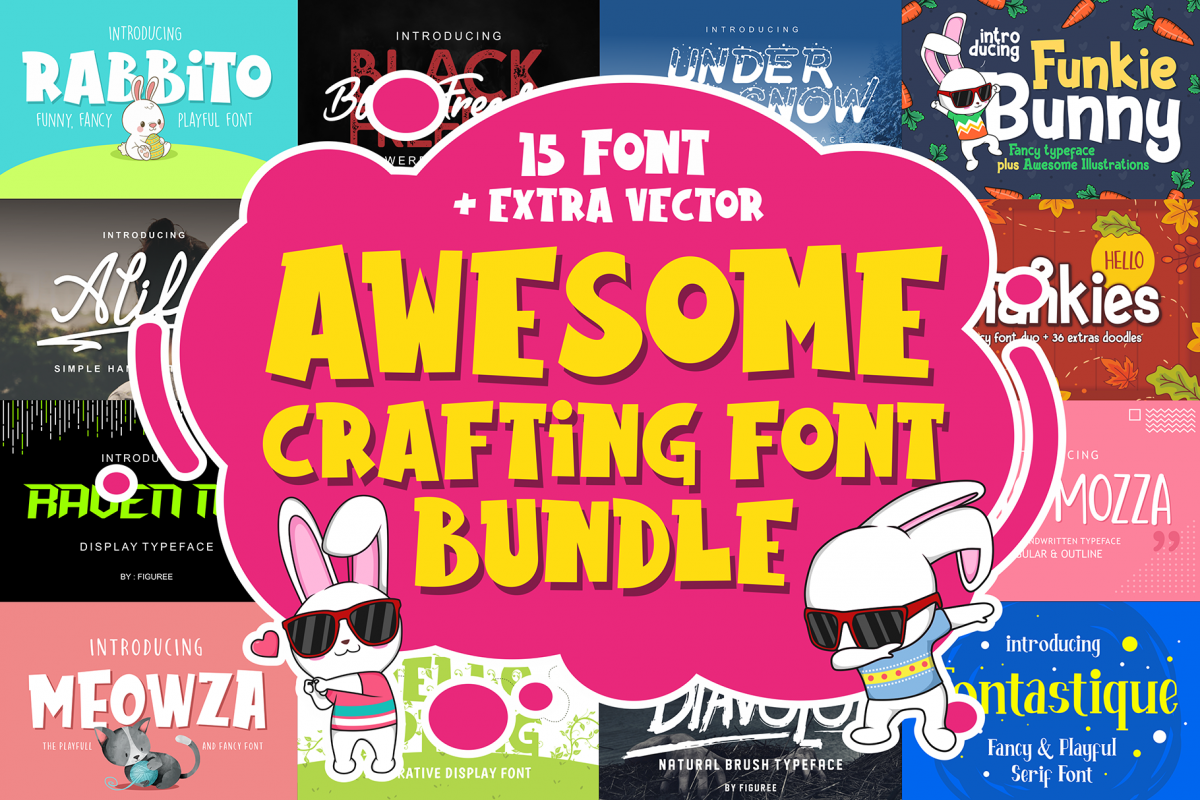
Awesome Crafting Font Bundle
I've handpicked a unique selection for this special bundle.
It does not include ALL of my fonts - just a mix of different styles of my display font!
includes:
This bundle are perfect for something that carries cartoon themes, children's books, funny greeting cards, food package designs, simple logotype, t-shirt design, bottle label, games application name, vintage poster or abstract images and many more.